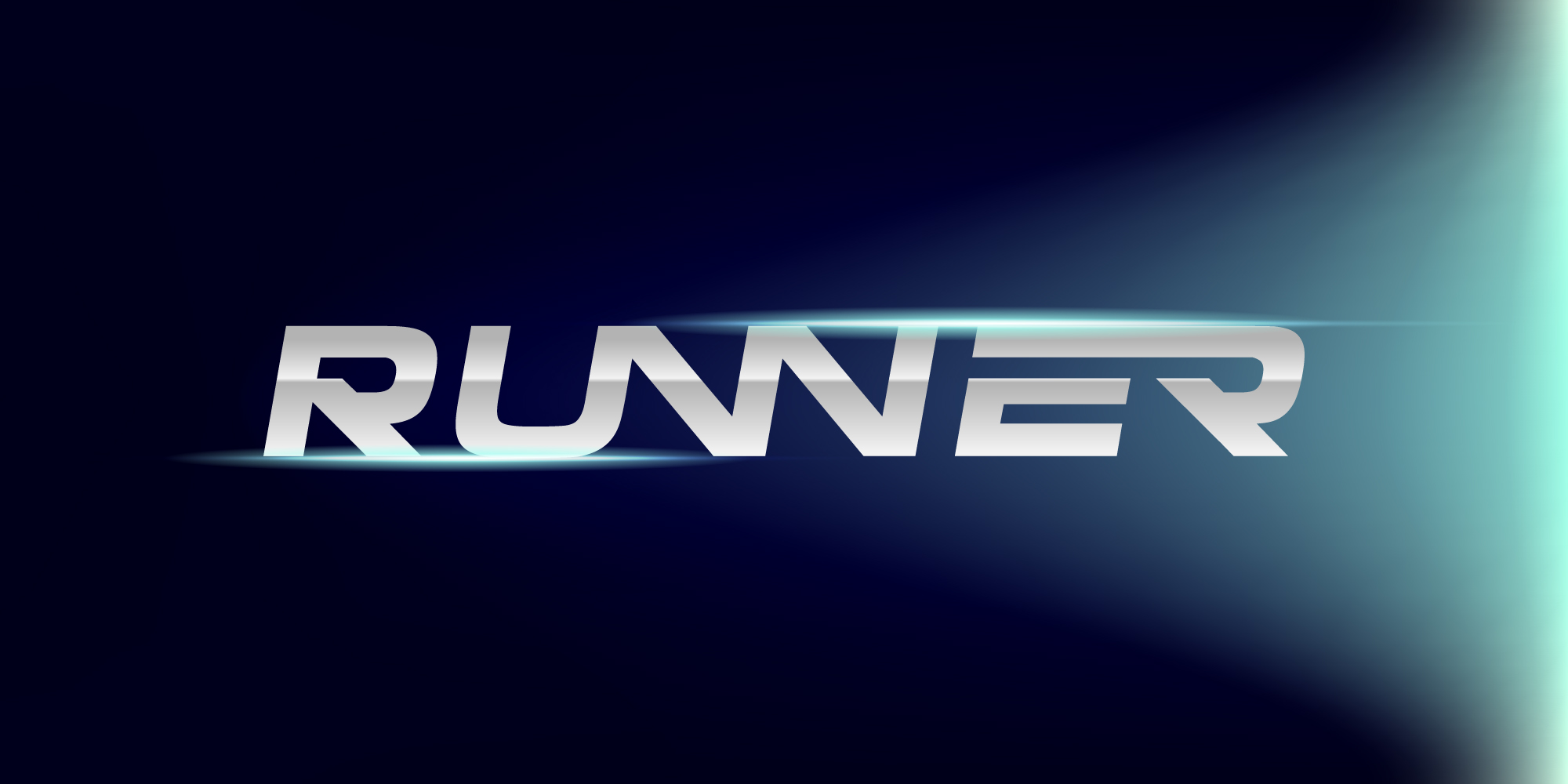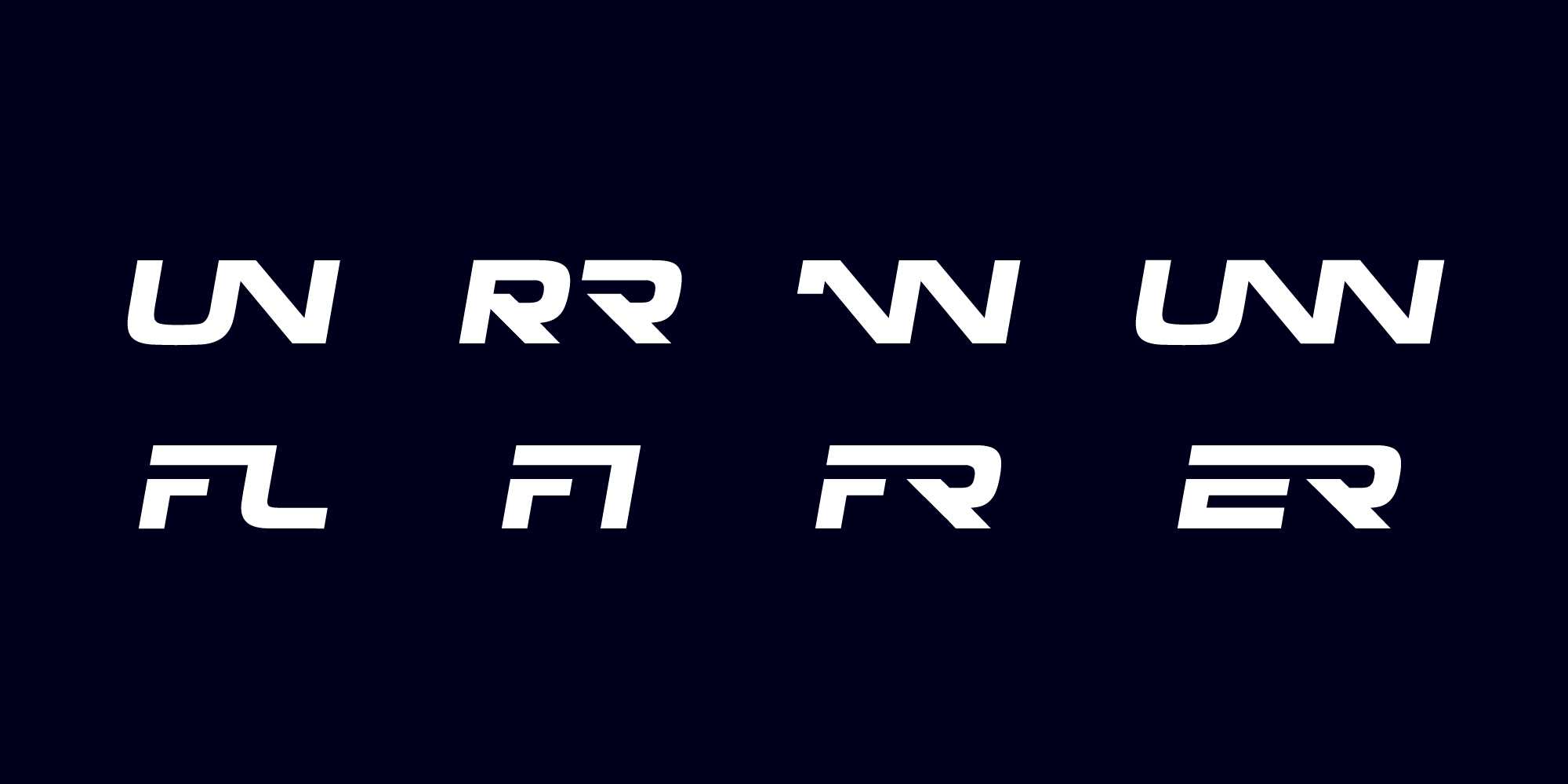
MBF Runner
The long run doesn't scare the athlete
Runner is a modern, lean and clean font. This display typeface can easily handle high tech, racing, music event or sporty themed project. Runner is perfect for logo, titling, headline, poster, teeshirt design and more.
Kerning, Stylistic Alternate, Discretionary Ligature